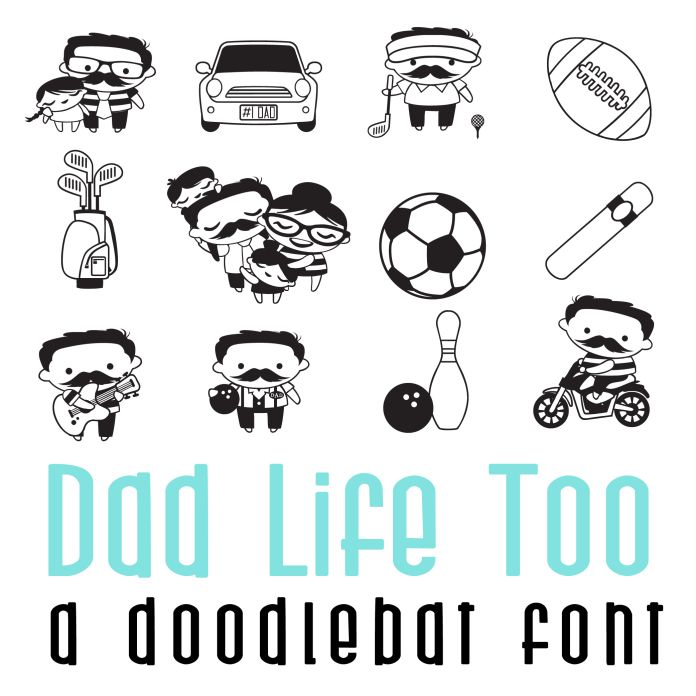
This fun doodlebat font features 26 more dad's living their best dad life! Perfect for cards, crafts, gifts, Father's Day, planner stickers, scrapbook pages and more!